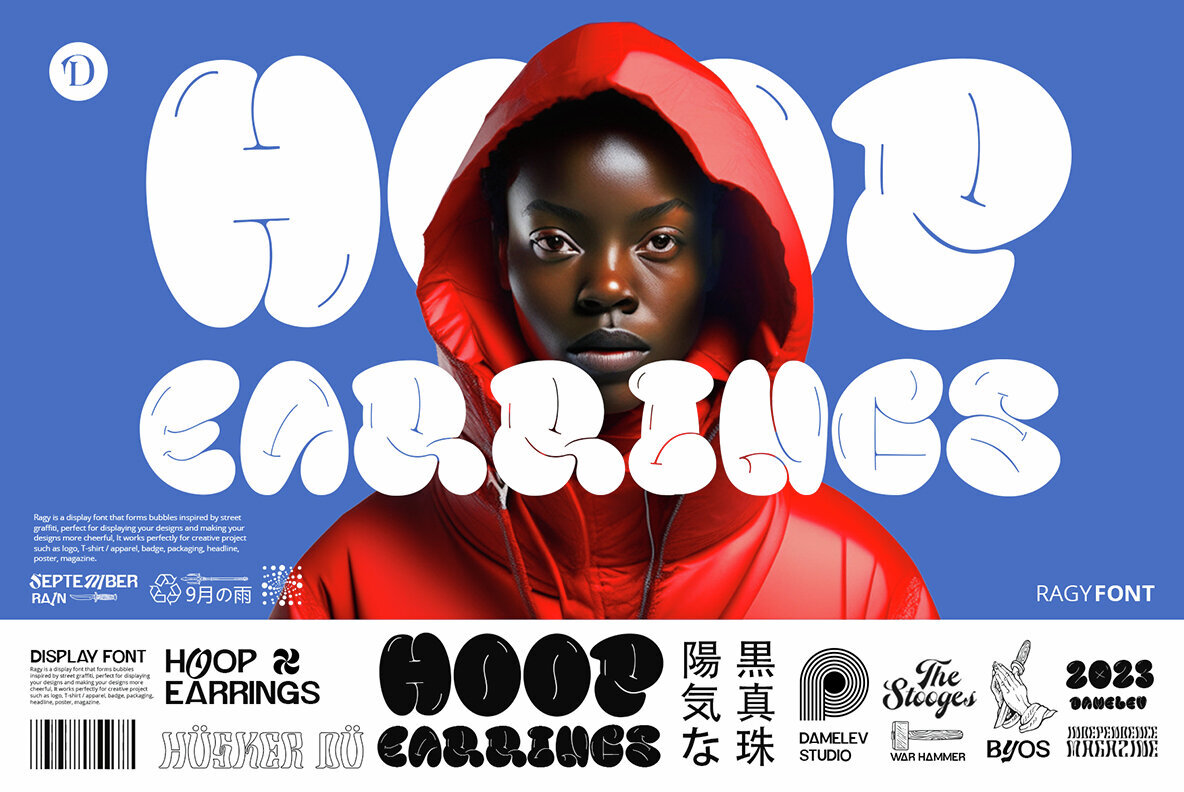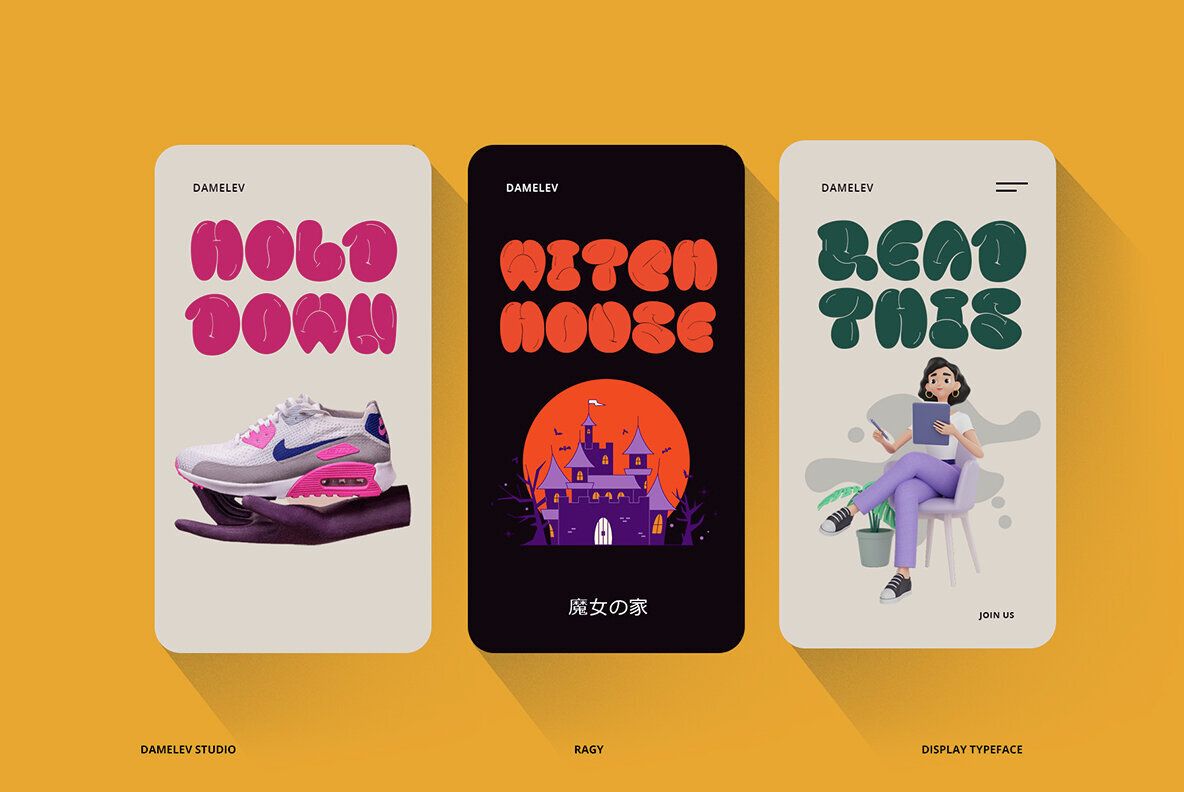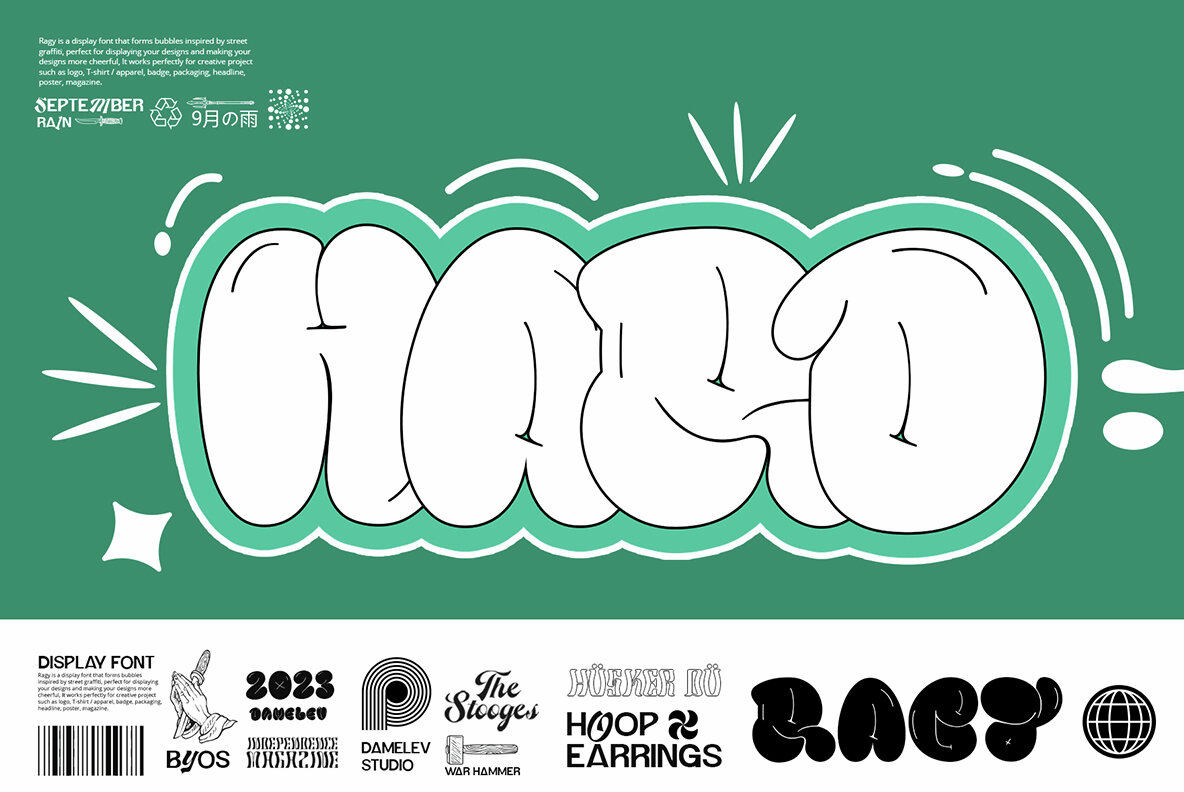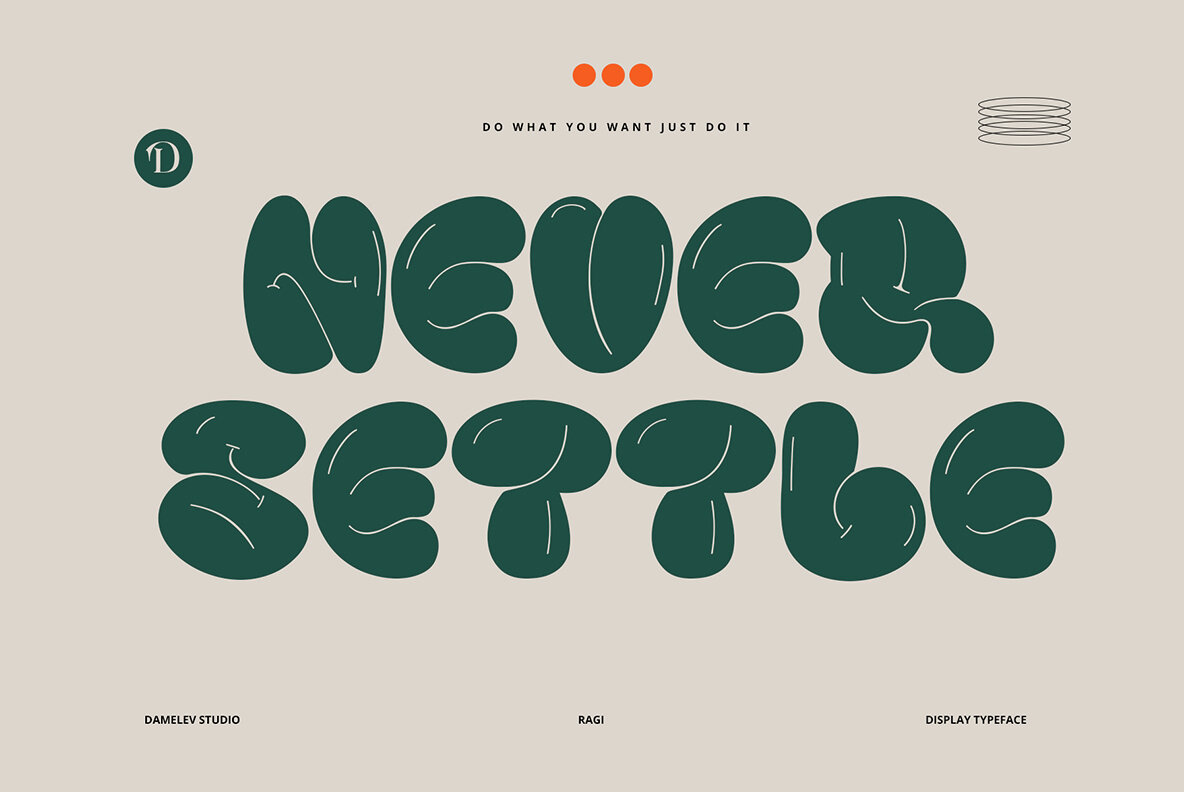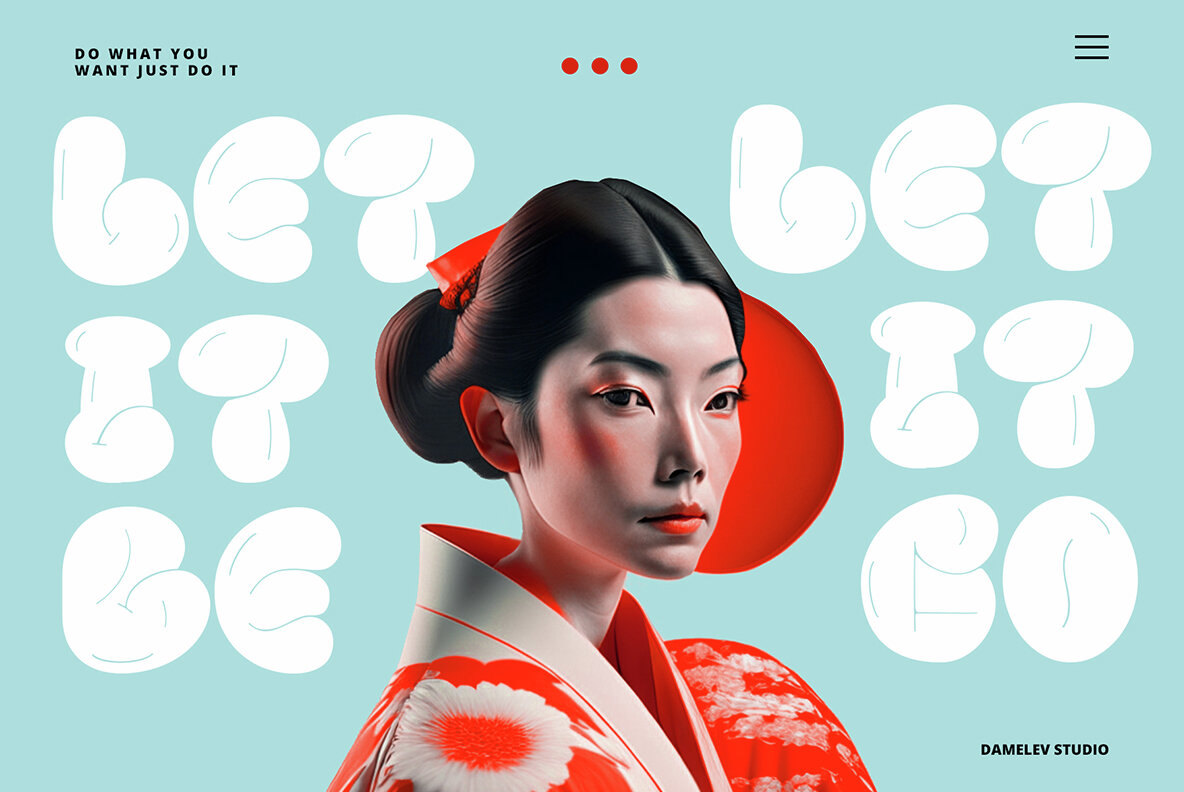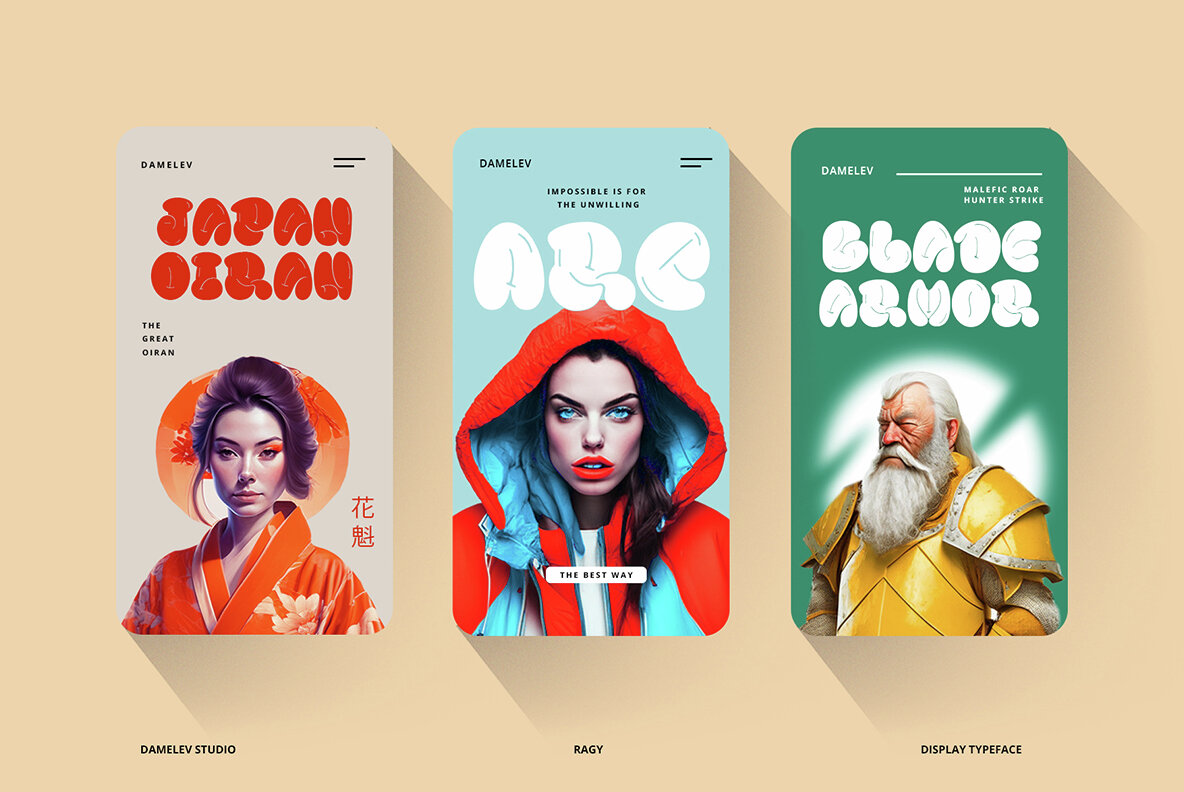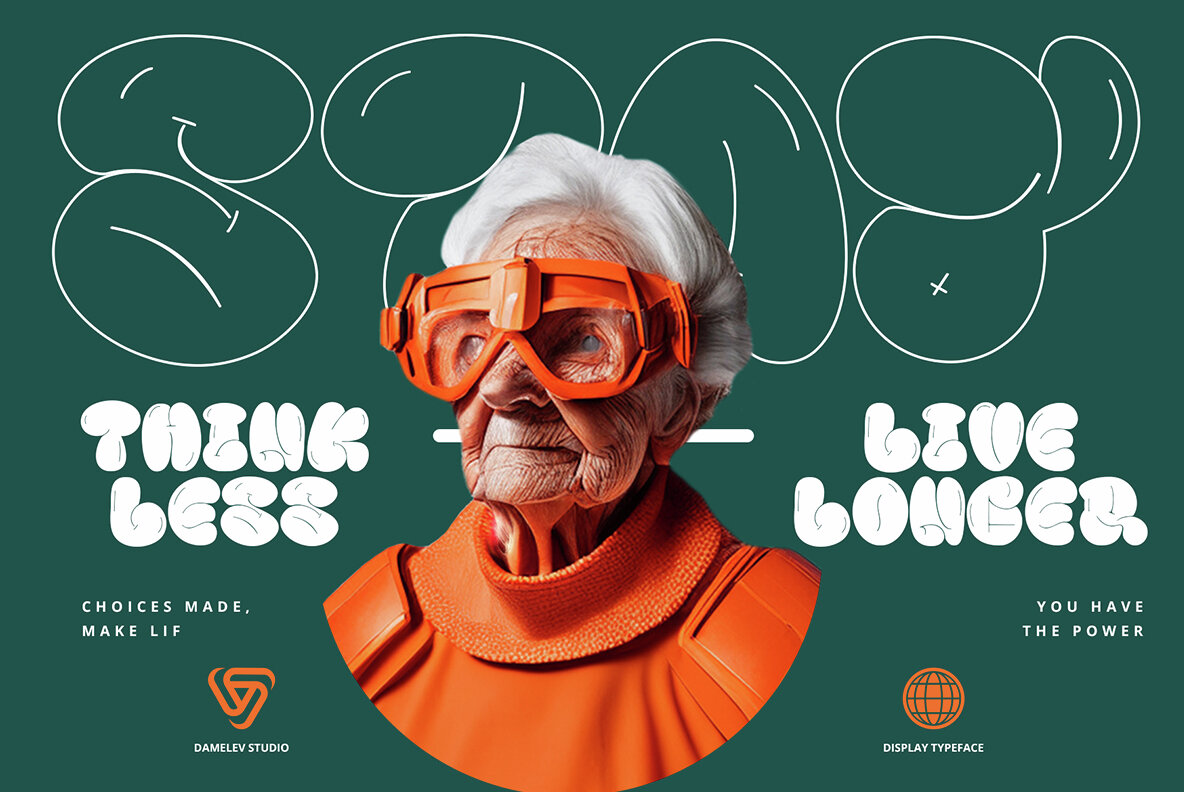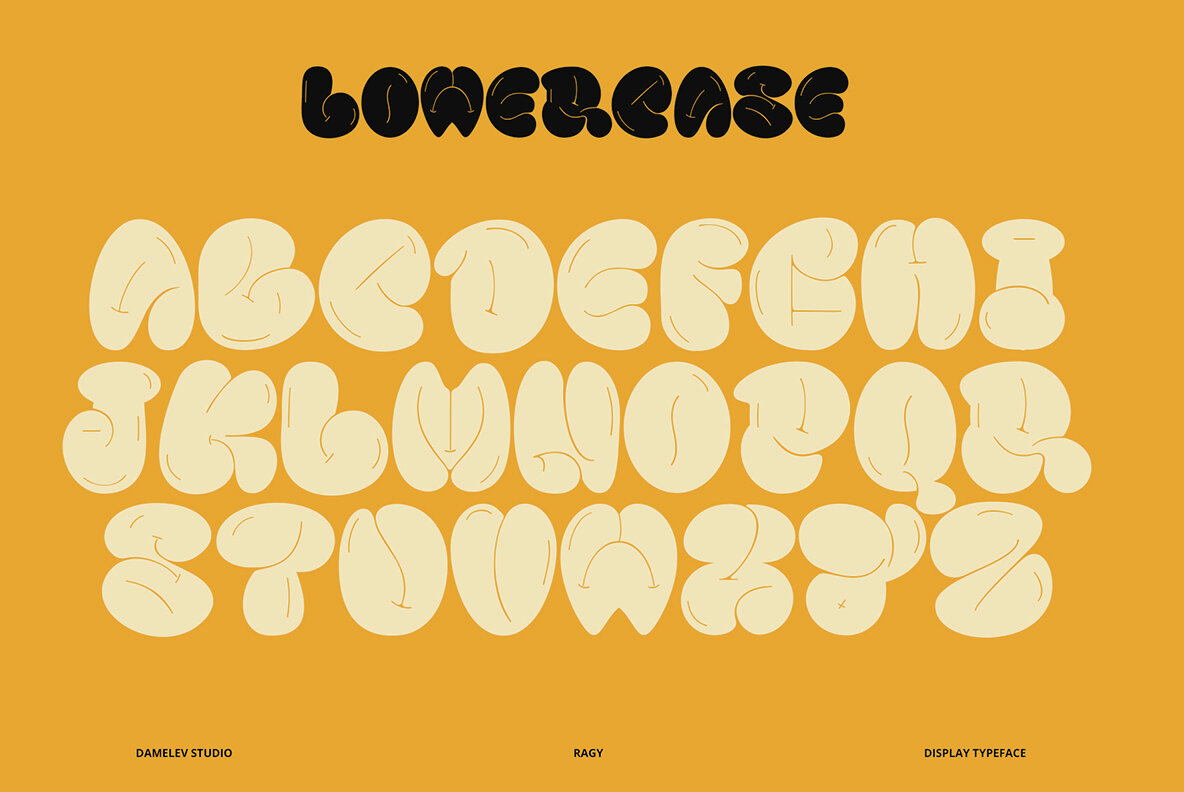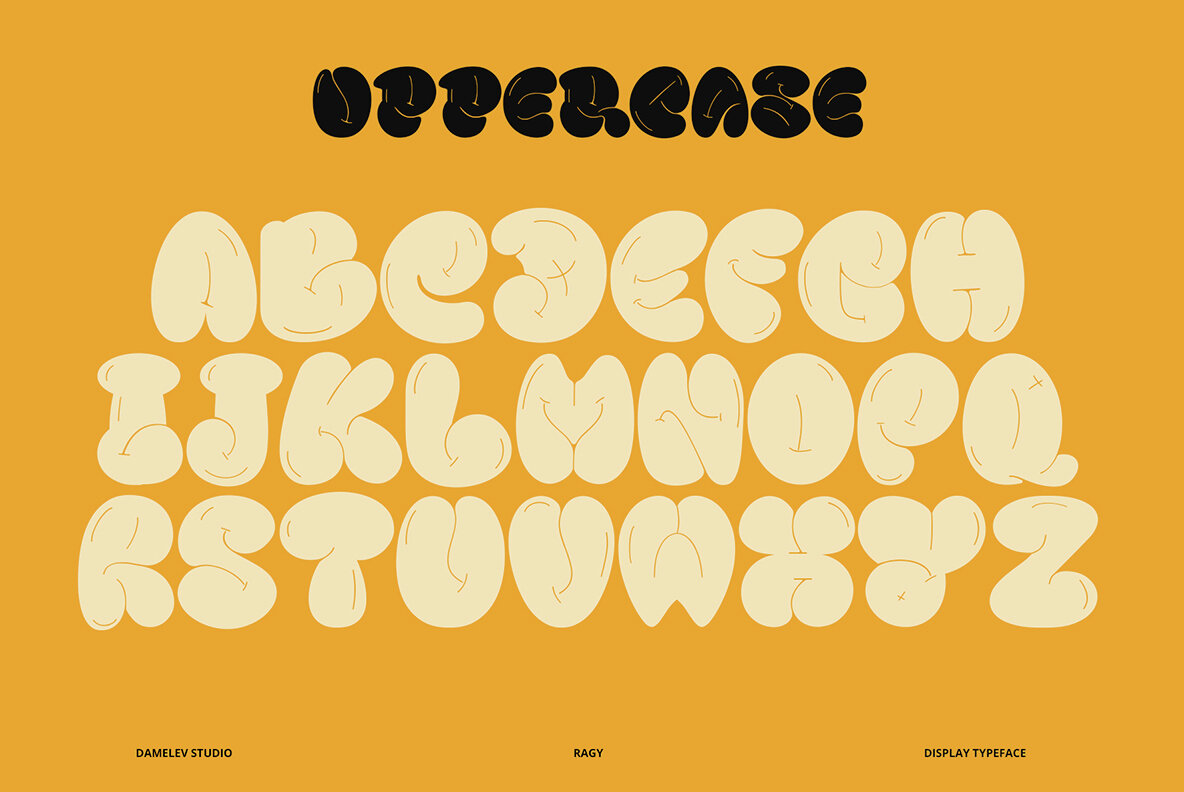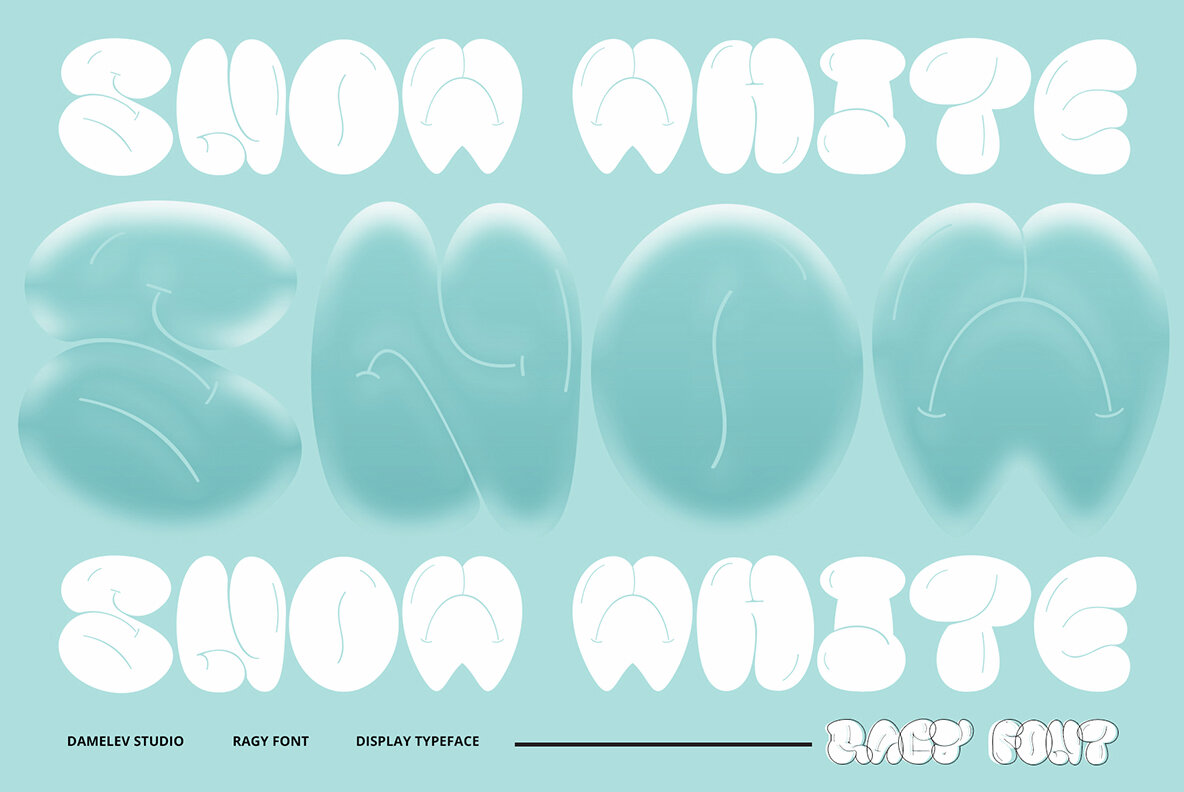
Ragy Font
Ragy Regular
If you’re looking for a display font that can add a touch of charm and personality to your creative projects, Ragy Ragy should be your top choice. Inspired by street graffiti, this font is perfect for giving your designs a fun and cheerful look that’s sure to catch the eye.